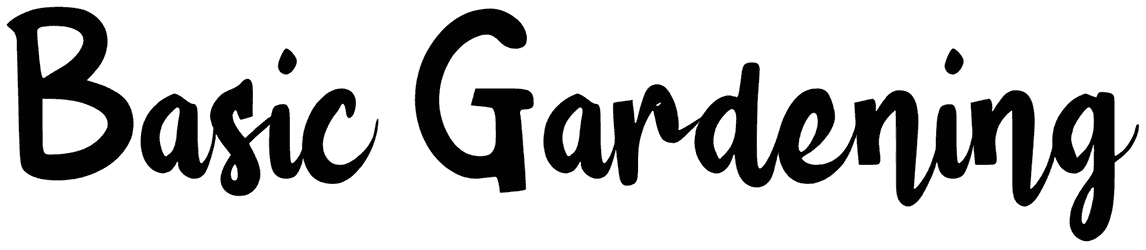
b Basic Gardening Font
If you want to give a fresh breath to all of your graphic content, a lovely script font such as b Basic Gardening would seriously deserve to be on your radar.
This masterpiece carries curved letters and is capable of sharing a sense of personalization, dynamism, drama, and dreaminess. This handwritten font can help you to be dominant in the realm of designing high-end animation posters, stickers, logos, merchandise, or editorial projects.